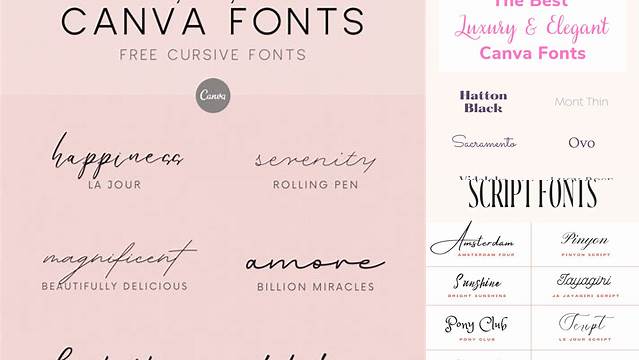
Elegant Cursive Fonts: A Canva Design Guide
Let's dive into the world of modern cursive fonts in Canva, guys! If you're looking to add a touch of elegance, personality, or just plain flair to your designs, cursive fonts are the way to go. Canva has a treasure trove of them, but navigating through the options can be a bit overwhelming. This guide will break down the best modern cursive fonts Canva has to offer, how to use them effectively, and tips for making your designs shine. We'll cover everything from pairing fonts to understanding the nuances of different cursive styles, so you can confidently create stunning visuals.
1. Understanding Modern Cursive Typography in Canva
So, what exactly makes a font "modern cursive?" It's more than just connecting letters! Modern cursive fonts often blend traditional calligraphy with contemporary design elements. Think clean lines, a touch of playfulness, and excellent readability. When you're choosing modern cursive fonts in Canva, you're essentially picking a voice for your design. This section will delve into the key characteristics of modern cursive fonts, how they differ from traditional styles, and why they're so popular in today's design landscape. Remember, understanding the fundamentals is the first step to mastering the art of typography!
Characteristics of Modern Cursive Fonts
Modern cursive fonts are defined by their unique blend of traditional calligraphy and contemporary design elements. Unlike their traditional counterparts, which often prioritize elaborate flourishes and intricate details, modern cursive fonts emphasize readability and versatility. Key characteristics include: clean lines, which contribute to a sleek and uncluttered appearance; a touch of playfulness, often achieved through subtle variations in stroke thickness and letterforms; and, most importantly, excellent readability, ensuring that the font remains legible even in smaller sizes or digital formats. Modern cursive fonts also tend to be more adaptable to various design contexts, making them suitable for a wide range of projects, from logos and branding materials to social media graphics and website headers.
Differences Between Modern and Traditional Cursive Styles
The divergence between modern and traditional cursive styles lies primarily in their aesthetic goals and intended applications. Traditional cursive fonts, inspired by historical handwriting styles, often feature ornate details, dramatic flourishes, and a formal tone. These fonts are well-suited for elegant invitations, certificates, and other formal documents where a sense of tradition and sophistication is desired. In contrast, modern cursive fonts in Canva prioritize a more contemporary and approachable feel. They are designed to be versatile and legible, making them ideal for a broader range of applications, including branding, marketing materials, and digital design. While traditional cursive fonts may evoke a sense of history and refinement, modern cursive fonts offer a fresh and dynamic aesthetic that resonates with contemporary audiences. The best way to decide between the two is to consider the overall message and feel you want to convey in your design.
Popularity in Contemporary Design
The popularity of modern cursive fonts in contemporary design stems from their ability to strike a balance between elegance and approachability. In a world saturated with sans-serif fonts, modern cursive fonts in Canva offer a refreshing alternative that adds personality and character to designs. They are particularly well-suited for branding projects that aim to convey a sense of creativity, sophistication, or handcrafted quality. Modern cursive fonts are also highly effective in digital design, where their readability and versatility make them a valuable asset for websites, social media graphics, and online advertising. Moreover, the rise of personalized marketing and user-centric design has further fueled the demand for fonts that can evoke emotion and create a connection with the audience. Modern cursive fonts, with their fluid strokes and distinctive letterforms, excel at achieving this goal, making them a staple in the contemporary designer's toolkit.
2. Top 10 Modern Cursive Font Picks in Canva
Okay, let's get to the good stuff – the fonts themselves! Canva has a ton to choose from, but we've narrowed it down to our top 10 modern cursive fonts in Canva. Each of these fonts brings something unique to the table, from playful elegance to sleek sophistication. We'll take a look at what makes each font special and how you can use them effectively in your designs. Get ready to find your new favorite font!
1. "Brittany Signature" - The Elegant Classic
Brittany Signature is a timeless modern cursive fonts in Canva that exudes elegance and sophistication. Its flowing lines and graceful curves make it a perfect choice for projects that require a touch of class, such as wedding invitations, branding materials for luxury brands, and high-end product packaging. The font's subtle variations in stroke thickness add a handcrafted feel, while its clean letterforms ensure readability across various sizes and mediums. Brittany Signature's versatility extends to its ability to pair well with a wide range of other fonts, making it a reliable option for designers seeking a sophisticated and timeless aesthetic.
2. "Playlist Script" - The Playful & Energetic Option
For projects that demand a playful and energetic vibe, Playlist Script is an excellent choice. This modern cursive fonts in Canva features bold strokes, dynamic letterforms, and a slightly informal feel, making it ideal for social media graphics, blog headers, and marketing materials aimed at a younger audience. Playlist Script's hand-drawn aesthetic adds a touch of personality and authenticity to designs, while its strong visual presence ensures that it stands out from the crowd. This font is particularly effective for projects that require a sense of fun and spontaneity, such as event posters, promotional flyers, and website banners. Its bold nature also makes it a good choice for creating eye-catching headlines and titles.
3. "Hello Script" - The Friendly & Approachable Choice
Hello Script is a friendly and approachable modern cursive fonts in Canva that radiates warmth and sincerity. Its rounded letterforms, gentle curves, and slightly condensed design make it a welcoming choice for projects that aim to create a personal connection with the audience. This font is particularly well-suited for greeting cards, thank you notes, and website testimonials. Its readability and informal style also make it a great option for body text in shorter paragraphs. Hello Script's versatility allows it to be used in both digital and print mediums, making it a valuable asset for designers seeking a font that embodies a sense of friendliness and trust.
4. "Great Vibes" - The Flourishing Beauty
Great Vibes lives up to its name with its elaborate flourishes and elegant swashes. This modern cursive fonts in Canva is designed to make a statement, adding a touch of drama and sophistication to any project. It's perfect for headlines, titles, and invitations where you want to create a sense of occasion. However, due to its intricate design, Great Vibes is best used sparingly and at larger sizes to maintain readability. Pairing it with a simple sans-serif font can help to balance its ornate nature and prevent visual clutter. When used effectively, Great Vibes can elevate your designs and add a touch of timeless beauty.
5. "Lovelo Inline" - The Modern Geometric Cursive
Lovelo Inline offers a unique twist on the traditional cursive style, blending it with modern geometric elements. This modern cursive fonts in Canva features a clean, linear design with a distinctive inline detail that adds a touch of contemporary flair. Its structured yet elegant appearance makes it suitable for a variety of applications, including logos, branding materials, and website headers. Lovelo Inline's versatility lies in its ability to convey both sophistication and modernity, making it a great choice for businesses that want to project a cutting-edge image while maintaining a sense of elegance. Its clean lines also ensure readability in both print and digital mediums.
6. "Wild Script" - The Carefree and Natural Style
Wild Script embodies a carefree and natural style, reminiscent of handwritten calligraphy. This modern cursive fonts in Canva features a flowing, irregular design with subtle variations in stroke thickness, giving it a handcrafted feel. It's an excellent choice for projects that require a touch of authenticity and personality, such as blog titles, social media quotes, and personal branding materials. Wild Script's versatility allows it to be used in a variety of design contexts, from rustic and bohemian themes to contemporary and minimalist styles. Its natural and organic aesthetic makes it a great option for conveying a sense of warmth and sincerity.
7. "Permanent Marker" - The Bold and Edgy Cursive
Permanent Marker is a bold and edgy cursive font that demands attention. While technically a handwritten font, it has cursive qualities. Its thick, slightly rough strokes create a strong visual impact, making it ideal for headlines, posters, and branding materials that need to stand out. This modern cursive fonts in Canva exudes confidence and energy, making it a great choice for projects that aim to convey a sense of boldness and innovation. However, due to its strong personality, Permanent Marker is best used sparingly and paired with simpler fonts to avoid overwhelming the design. When used effectively, it can add a unique and memorable touch to your visuals.
8. "Lemon Jelly" - The Sweet and Playful Option
Lemon Jelly is a sweet and playful modern cursive fonts in Canva that exudes a sense of lightheartedness and joy. Its rounded letterforms, gentle curves, and slightly bouncy baseline create a friendly and inviting aesthetic. This font is perfect for projects aimed at children, such as birthday invitations, party decorations, and educational materials. It's also a great choice for businesses that want to project a cheerful and approachable image, such as bakeries, cafes, and boutiques. Lemon Jelly's versatility extends to its ability to be used in both print and digital mediums, making it a valuable asset for designers seeking a font that embodies a sense of fun and whimsy.
9. "Amsterdam One" - The Chic and Modern Choice
Amsterdam One is a chic and modern modern cursive fonts in Canva that embodies sophistication and style. Its clean lines, elegant curves, and subtle variations in stroke thickness create a refined and contemporary aesthetic. This font is well-suited for a variety of applications, including logos, branding materials, website headers, and social media graphics. Amsterdam One's versatility lies in its ability to convey both professionalism and creativity, making it a great choice for businesses that want to project a polished and stylish image. Its readability and modern design also make it a valuable asset for digital projects.
10. "Moonlights On Earth" - The Romantic and Dreamy Style
Moonlights On Earth evokes a romantic and dreamy atmosphere with its delicate lines and flowing curves. This modern cursive fonts in Canva is perfect for projects that require a touch of whimsy and elegance, such as wedding invitations, greeting cards, and poetry books. Its graceful and ethereal aesthetic makes it a great choice for conveying emotions of love, beauty, and serenity. However, due to its delicate nature, Moonlights On Earth is best used at larger sizes and paired with simpler fonts to ensure readability. When used effectively, it can add a touch of magic and enchantment to your designs.
3. Pairing Modern Cursive Fonts with Other Styles
One of the keys to using modern cursive fonts in Canva effectively is knowing how to pair them with other fonts. Cursive fonts, with their flowing lines and distinct personalities, often work best when contrasted with simpler, more legible fonts. This creates visual balance and ensures that your message is clear and impactful. Let's explore some guidelines for pairing cursive fonts, specific font combinations that work well, and examples of how to use these pairings in your designs.
Guidelines for Effective Font Pairing
Effective font pairing is crucial for creating visually appealing and readable designs. When pairing modern cursive fonts in Canva with other styles, consider these guidelines:
- Contrast is Key: Choose fonts with contrasting styles to create visual interest. Pair a cursive font with a sans-serif or a serif font to achieve balance.
- Hierarchy Matters: Use different font sizes and weights to establish a clear hierarchy within your design. Cursive fonts are often best used for headings or accents, while simpler fonts are more suitable for body text.
- Readability is Paramount: Ensure that your font pairings are legible, especially in smaller sizes. Avoid pairing two highly decorative fonts together, as this can create visual clutter.
- Consider the Mood: Choose fonts that complement the overall mood and message of your design. A formal cursive font may pair well with a classic serif, while a playful cursive font might be better suited with a modern sans-serif.
- Limit the Number of Fonts: Stick to a maximum of two or three fonts per design to maintain visual consistency and avoid overwhelming the viewer.
Successful Cursive Font Combinations
Here are some specific font combinations that work well with modern cursive fonts in Canva:
- Brittany Signature + Montserrat: The elegance of Brittany Signature paired with the clean lines of Montserrat creates a sophisticated and balanced look.
- Playlist Script + Open Sans: The playful energy of Playlist Script is complemented by the readability and neutrality of Open Sans.
- Hello Script + Lato: The friendly nature of Hello Script pairs perfectly with the modern and approachable style of Lato.
- Great Vibes + Raleway: The dramatic flourishes of Great Vibes are balanced by the clean and minimalist design of Raleway.
- Wild Script + Roboto: The handcrafted feel of Wild Script is enhanced by the simple and legible nature of Roboto.
Examples of Font Pairing in Designs
Let's look at some examples of how these font pairings can be used in different design contexts:
- Wedding Invitation: Use Brittany Signature for the names and date, paired with Montserrat for the event details. This combination creates a classic and elegant invitation.
- Social Media Graphic: Combine Playlist Script for the headline with Open Sans for the body text. This pairing is perfect for creating eye-catching and readable social media posts.
- Website Header: Use Great Vibes for the company logo or tagline, paired with Raleway for the navigation menu. This creates a professional yet stylish website header.
- Blog Post: Pair Wild Script for the blog title with Roboto for the body text. This combination gives the blog a natural and authentic feel.
4. Using Cursive Fonts for Branding
Modern cursive fonts in Canva can be a powerful tool for branding, helping you to create a unique and memorable identity for your business. A well-chosen cursive font can convey a specific mood, personality, and set of values, making your brand instantly recognizable. Let's explore how cursive fonts can be used in logo design, website design, and marketing materials to enhance your brand's overall image.
Enhancing Brand Identity with Cursive Fonts
Cursive fonts can significantly enhance your brand identity by adding a touch of personality and sophistication. When used effectively, a modern cursive fonts in Canva can communicate your brand's values and create an emotional connection with your target audience. For example, a brand that wants to project a sense of luxury and elegance might use a flowing cursive font like Brittany Signature, while a brand aiming for a more playful and approachable image might opt for a font like Playlist Script. The key is to choose a font that accurately reflects your brand's unique identity and resonates with your target market. Remember, your font choice is a visual representation of your brand's voice, so make sure it speaks the right language.
Cursive Fonts in Logo Design
Cursive fonts can be a striking choice for logo design, adding a touch of artistry and individuality to your brand's visual identity. A well-designed logo featuring a modern cursive fonts in Canva can be both memorable and timeless, setting your brand apart from the competition. When using cursive fonts in logo design, it's crucial to prioritize readability and ensure that the font remains legible even at smaller sizes. Consider the overall aesthetic of your brand and choose a cursive font that complements your company's values and mission. A clean and elegant cursive font can convey sophistication, while a more playful and expressive font can communicate creativity and innovation. It's also important to balance the cursive font with other design elements, such as color, imagery, and spacing, to create a cohesive and impactful logo.
Cursive Fonts in Website Design
Cursive fonts can add a touch of personality and elegance to your website design, creating a unique and engaging user experience. While cursive fonts are generally not recommended for body text due to readability concerns, they can be highly effective for headings, titles, and other visual elements. A strategically placed modern cursive fonts in Canva can draw attention to key messages, highlight important information, and create a cohesive brand identity. When using cursive fonts in website design, it's essential to consider the overall aesthetic of your site and choose a font that complements your brand's color palette and imagery. Pair your cursive font with a legible sans-serif or serif font for body text to ensure that your content remains accessible to all users. By carefully integrating cursive fonts into your website design, you can create a visually appealing and memorable online presence.
Cursive Fonts in Marketing Materials
Cursive fonts can be a valuable asset in your marketing materials, helping you to create a cohesive and impactful brand message. Whether you're designing brochures, flyers, social media graphics, or email templates, a modern cursive fonts in Canva can add a touch of personality and sophistication to your visuals. When using cursive fonts in marketing materials, it's important to consider your target audience and the overall tone of your campaign. A formal cursive font may be appropriate for luxury brands and high-end products, while a more playful and informal font might be better suited for marketing materials aimed at a younger audience. Remember to balance your cursive font with other design elements, such as imagery, color, and typography, to create a visually appealing and effective marketing campaign. By strategically incorporating cursive fonts into your marketing materials, you can enhance your brand's image and create a lasting impression on your customers.
5. Best Practices for Using Cursive Fonts in Canva
Now that we've explored the world of modern cursive fonts in Canva, let's discuss some best practices for using them effectively. Cursive fonts, while beautiful and expressive, require a thoughtful approach to ensure readability and visual harmony. We'll cover how to maintain readability, avoid common mistakes, and ensure your designs look polished and professional.
Maintaining Readability with Cursive Fonts
Maintaining readability is crucial when using cursive fonts in your designs. While modern cursive fonts in Canva can add a touch of elegance and personality, they can also be challenging to read if not used carefully. To ensure readability, consider the following best practices:
- Use cursive fonts sparingly: Cursive fonts are best used for headings, titles, and accents, rather than large blocks of text. Overusing cursive fonts can make your design appear cluttered and difficult to read.
- Choose a legible cursive font: Some cursive fonts are more legible than others. Opt for fonts with clear letterforms and ample spacing between characters.
- Adjust font size and spacing: Increase the font size and letter spacing to improve readability, especially for smaller text elements.
- Pair with a legible font: Use a simple sans-serif or serif font for body text to contrast with the cursive font and enhance overall readability.
- Consider background contrast: Ensure sufficient contrast between the text color and the background color to make the text stand out.
When using modern cursive fonts in Canva, it's important to avoid common mistakes that can detract from your design's overall effectiveness. Here are some pitfalls to watch out for:
- Overusing cursive fonts: As mentioned earlier, using too much cursive text can make your design appear cluttered and difficult to read. Stick to using cursive fonts for key elements, such as headings or logos.
- Pairing cursive fonts with similar styles: Avoid pairing two highly decorative or ornate fonts together, as this can create visual chaos. Instead, opt for a contrasting font style, such as a simple sans-serif or serif font.
- Using cursive fonts for body text: Cursive fonts are generally not suitable for body text due to their complex letterforms and potential readability issues. Stick to using legible fonts, such as Arial, Times New Roman, or Open Sans, for body text.
- Ignoring font size and spacing: Using cursive fonts at small sizes or without adequate spacing can make them difficult to read. Adjust the font size and letter spacing to ensure readability.
- Neglecting background contrast: Insufficient contrast between the text color and the background color can make cursive fonts appear faint and difficult to see. Choose contrasting colors to make the text stand out.
Ensuring a Polished and Professional Design
To ensure that your designs look polished and professional when using modern cursive fonts in Canva, consider these tips:
- Plan your design: Before you start designing, sketch out your layout and determine where you want to use cursive fonts. This will help you create a cohesive and visually appealing design.
- Choose the right font: Select a cursive font that complements your design's overall style and message. Consider factors such as legibility, personality, and brand identity.
- Use font pairing effectively: Combine cursive fonts with simpler fonts to create visual balance and enhance readability. Experiment with different font pairings to find the perfect combination.
- Pay attention to font hierarchy: Use different font sizes and weights to create a clear visual hierarchy within your design. Cursive fonts are often best used for headings or accents.
- Proofread your design: Before finalizing your design, carefully proofread all text elements to ensure there are no spelling or grammatical errors. A polished design is a professional design.
6. Free vs. Premium Cursive Fonts in Canva
Canva offers a wide range of both free and premium modern cursive fonts in Canva. Understanding the differences between these options can help you make informed decisions and choose the fonts that best suit your needs and budget. We'll compare the selection, quality, and licensing considerations for free and premium fonts.
Comparing Font Selection: Free vs. Premium
When it comes to font selection, Canva's free options offer a decent starting point, but the premium collection provides a significantly wider array of choices. The free modern cursive fonts in Canva are suitable for basic design needs and may include popular fonts that are widely used. However, the premium collection boasts a more diverse range of styles, weights, and variations, allowing for greater creative flexibility. If you're looking for unique and distinctive cursive fonts to set your designs apart, the premium option is worth considering. The larger selection also means you're more likely to find a font that perfectly matches your brand's personality and aesthetic.
Assessing Font Quality and Design
While Canva's free modern cursive fonts in Canva are generally well-designed, premium fonts often exhibit a higher level of craftsmanship and attention to detail. Premium fonts may feature more refined letterforms, smoother curves, and better overall legibility. They are also more likely to include additional glyphs and stylistic alternates, giving you greater control over the appearance of your text. Investing in premium fonts can elevate the quality of your designs and create a more polished and professional look. However, it's important to note that many excellent free cursive fonts are available, so assessing the specific needs of your project is crucial before making a decision. Consider factors like the size of the text, the intended medium (print or digital), and the overall design aesthetic to determine whether a premium font is necessary.
Understanding Font Licensing Considerations
Font licensing is an important aspect to consider when using both free and premium modern cursive fonts in Canva. Free fonts typically come with a standard license that allows for personal and commercial use, but it's crucial to review the specific terms and conditions for each font. Some free fonts may have restrictions on certain types of usage, such as embedding in commercial products or using in logos. Premium fonts, on the other hand, often come with a more comprehensive license that covers a wider range of applications. Canva's premium fonts are generally licensed for both personal and commercial use within the Canva platform, but it's essential to understand the specific licensing terms before using them in projects outside of Canva. If you're unsure about the licensing restrictions for a particular font, it's always best to check with the font designer or the font foundry to ensure that you are using the font legally.
7. Advanced Tips for Cursive Typography in Canva
Ready to take your cursive typography skills to the next level? Let's dive into some advanced tips for working with modern cursive fonts in Canva. We'll explore kerning and tracking adjustments, using cursive fonts in text effects, and incorporating cursive fonts into animations.
Mastering Kerning and Tracking Adjustments
Kerning and tracking are essential typographic adjustments that can significantly impact the readability and visual appeal of your cursive text. Kerning refers to the spacing between individual letter pairs, while tracking adjusts the overall spacing between all letters in a word or phrase. Modern cursive fonts in Canva, with their flowing strokes and intricate letterforms, often require careful kerning and tracking adjustments to ensure optimal legibility. In Canva, you can adjust kerning and tracking by selecting your text and using the spacing tools in the toolbar. Reducing the spacing between letters can make cursive fonts appear more connected and fluid, while increasing the spacing can improve readability, especially in smaller text sizes. Experiment with different kerning and tracking values to achieve the perfect balance and create a polished typographic composition.
Utilizing Cursive Fonts in Text Effects
Canva offers a variety of text effects that can enhance the visual impact of your modern cursive fonts in Canva. These effects include shadows, outlines, glows, and more, allowing you to add depth, dimension, and personality to your cursive typography. Experimenting with text effects can transform a simple cursive font into a stunning visual element. For example, adding a subtle shadow can make your cursive text appear to float above the background, while an outline can help it stand out against a busy image. A glow effect can add a touch of elegance and sophistication, while other effects, such as curved text or text masks, can create unique and eye-catching designs. When using text effects, it's important to maintain readability and avoid overwhelming the font's natural beauty. Choose effects that complement the cursive style and enhance its overall impact without sacrificing legibility.
Incorporating Cursive Fonts into Animations
Animating modern cursive fonts in Canva can add a dynamic and engaging element to your designs, making them more captivating and memorable. Canva's animation features allow you to create a variety of effects, such as fading, sliding, and popping, that can bring your cursive text to life. Incorporating cursive fonts into animations is particularly effective for social media videos, website headers, and presentations. For example, you can animate a cursive font to reveal a headline or logo, create a sense of movement and excitement, or add a touch of elegance and sophistication to your visuals. When animating cursive fonts, it's important to consider the speed and timing of the animation. A slow and graceful animation can complement the flowing nature of cursive fonts, while a faster animation can create a sense of energy and dynamism. Experiment with different animation styles to find the perfect fit for your design and create a lasting impression on your audience.
8. Finding Inspiration for Cursive Font Designs
Stuck in a creative rut? Finding inspiration is key to creating fresh and engaging designs with modern cursive fonts in Canva. Let's explore some resources and techniques for sparking your creativity, including online design galleries, social media platforms, and analyzing successful designs.
Exploring Online Design Galleries
Online design galleries are a treasure trove of inspiration for cursive font designs. Websites like Dribbble, Behance, and Awwwards showcase a vast collection of creative projects from designers around the world, offering a wealth of ideas and examples. Browsing these galleries can expose you to different styles, techniques, and font pairings that you may not have considered before. Pay attention to how designers are using modern cursive fonts in Canva in logos, branding materials, websites, and marketing campaigns. Look for designs that resonate with your personal style or the aesthetic you're trying to achieve. Analyze the font choices, color palettes, and overall layouts to gain insights and generate your own design ideas. Design galleries are a valuable resource for staying up-to-date on the latest trends and techniques in cursive typography.
Leveraging Social Media Platforms
Social media platforms like Instagram, Pinterest, and Twitter can also be excellent sources of inspiration for cursive font designs. Many designers and brands use these platforms to showcase their work, share design tips, and engage with the design community. Follow designers, brands, and hashtags related to typography, graphic design, and branding to stay informed and inspired. Pinterest is particularly useful for creating mood boards and collecting visual references for your cursive font projects. Instagram is a great place to discover new fonts and see how they're being used in real-world designs. Twitter can provide insights into design trends and discussions, as well as connect you with other designers and creatives. Social media platforms offer a dynamic and interactive way to gather inspiration and stay connected to the design world.
Analyzing Successful Cursive Font Designs
One of the best ways to improve your cursive typography skills is to analyze successful designs that effectively use modern cursive fonts in Canva. Look for examples of logos, websites, marketing materials, and other projects that incorporate cursive fonts in a visually appealing and impactful way. Ask yourself what makes these designs work. Are the font choices appropriate for the brand or message? Is the font pairing harmonious and legible? Are the kerning and tracking adjustments well-executed? How are text effects and animations being used to enhance the cursive fonts? By deconstructing successful designs, you can gain a deeper understanding of the principles of cursive typography and apply them to your own projects. This analytical approach can help you develop your design eye and create more effective and memorable visuals.
9. Troubleshooting Common Cursive Font Issues in Canva
Even with the best preparation, you might encounter some challenges when working with modern cursive fonts in Canva. Let's troubleshoot some common issues, including font rendering problems, alignment difficulties, and legibility concerns, so you can overcome these hurdles and create flawless designs.
Addressing Font Rendering Problems
Font rendering problems can occur when a font doesn't display correctly in Canva, resulting in distorted or pixelated text. This issue can be caused by various factors, such as font file corruption, browser compatibility issues, or outdated software. If you encounter font rendering problems, try the following troubleshooting steps:
- Clear your browser cache and cookies: Clearing your browser's cache and cookies can resolve temporary glitches that may be affecting font rendering.
- Try a different browser: If the issue persists, try using a different web browser to see if the problem is browser-specific.
- Update your browser: Make sure you're using the latest version of your web browser, as older versions may have compatibility issues with certain fonts.
- Check your internet connection: A slow or unstable internet connection can sometimes cause font rendering problems. Ensure you have a stable internet connection.
- Contact Canva support: If none of these steps resolve the issue, contact Canva support for further assistance. They may be able to provide specific troubleshooting steps or identify a bug in the platform.
Resolving Alignment Difficulties
Alignment difficulties can arise when cursive fonts don't align properly with other elements in your design, such as images, shapes, or other text. Modern cursive fonts in Canva, with their flowing strokes and irregular baselines, can sometimes be challenging to align precisely. To resolve alignment difficulties, try the following techniques:
- Use Canva's alignment tools: Canva's alignment tools allow you to easily align text elements horizontally or vertically with other objects in your design. Select the text element and the object you want to align it with, and then use the alignment buttons in the toolbar.
- Adjust letter spacing and line height: Adjusting letter spacing and line height can help improve the visual alignment of cursive fonts. Increase letter spacing to create more space between characters, or adjust line height to control the vertical spacing between lines of text.
- Use a baseline grid: A baseline grid can help you align text elements consistently across your design. Canva doesn't have a built-in baseline grid feature, but you can create a custom grid using lines and shapes.
- Eyeball the alignment: Sometimes, the best way to achieve perfect alignment is to trust your eye. Manually adjust the position of the text element until it looks visually balanced and aligned with other elements in your design.
Addressing Legibility Concerns
Legibility concerns can arise when modern cursive fonts in Canva are difficult to read, especially at smaller sizes or in complex designs. As discussed earlier, maintaining readability is crucial when using cursive fonts. If you're concerned about the legibility of your cursive text, try the following solutions:
- Choose a legible cursive font: Select a cursive font that is known for its readability. Some cursive fonts are more legible than others, so opt for fonts with clear letterforms and ample spacing between characters.
- Increase font size and spacing: Increase the font size and letter spacing to improve readability, especially for smaller text elements.
- Use a contrasting background: Ensure sufficient contrast between the text color and the background color to make the text stand out. Dark text on a light background or vice versa is generally the most legible.
- Pair with a legible font: Use a simple sans-serif or serif font for body text to contrast with the cursive font and enhance overall readability.
- Test your design: Before finalizing your design, test its legibility by viewing it at different sizes and on different devices. Get feedback from others to ensure that your cursive text is easily readable.
10. The Future of Cursive Fonts in Digital Design
What does the future hold for modern cursive fonts in Canva and digital design in general? As technology evolves and design trends shift, cursive fonts are likely to play an increasingly important role in creating unique and engaging visual experiences. Let's explore emerging trends, the impact of AI on typography, and the continued relevance of cursive fonts in the digital age.
Emerging Trends in Cursive Typography
Several emerging trends are shaping the future of cursive typography in digital design. One trend is the increasing use of hand-drawn and organic cursive fonts that convey a sense of authenticity and personality. These fonts often feature irregular letterforms, subtle imperfections, and a handcrafted feel. Another trend is the blending of cursive fonts with other styles, such as sans-serif or serif fonts, to create dynamic and visually interesting typographic compositions. Designers are also experimenting with new ways to animate cursive fonts, adding movement and interactivity to their designs. The rise of personalized marketing and user-centric design is also driving the demand for cursive fonts that can evoke emotion and create a connection with the audience. As digital design continues to evolve, cursive fonts are likely to become even more versatile and expressive.
The Impact of AI on Typography
Artificial intelligence (AI) is poised to have a significant impact on typography, including cursive fonts. AI-powered tools are being developed to automate various aspects of font design, such as kerning, tracking, and spacing adjustments. AI can also be used to generate new cursive fonts based on specific design parameters or stylistic preferences. These tools can help designers streamline their workflow and explore new creative possibilities. However, it's important to note that AI is unlikely to replace human designers entirely. The artistic and aesthetic judgment of a human designer is still essential for creating truly exceptional cursive typography. AI can serve as a valuable assistant, but the human touch remains crucial for crafting designs that are both functional and beautiful.
Continued Relevance in the Digital Age
Despite the rise of digital design and the dominance of sans-serif fonts in many contexts, modern cursive fonts in Canva are likely to remain relevant in the digital age. Cursive fonts offer a unique and expressive way to communicate a brand's personality, convey emotions, and create a sense of connection with the audience. In a world saturated with digital content, cursive fonts can help designs stand out and make a lasting impression. They are particularly well-suited for projects that require a personal touch, such as branding materials for small businesses, social media graphics, and website headers. As long as there is a desire for creativity, individuality, and human connection in digital design, cursive fonts will continue to play a vital role.